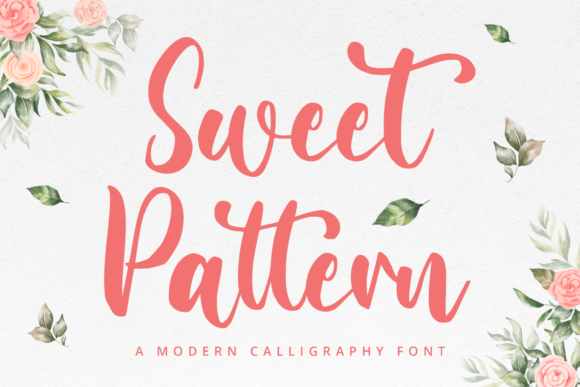
**Sweet Pattern Font: The Epitome of Elegance and Charm**
Immerse yourself in the world of Sweet Pattern, a captivating script font that embodies grace, sophistication, and timeless beauty. Inspired by the intricate patterns found in nature and the delicate touch of calligraphy, Sweet Pattern is an artistic masterpiece that will elevate your designs to new heights.
**A Font That Speaks Volumes**
With its sweeping strokes, playful curves, and meticulous attention to detail, Sweet Pattern is a font that speaks volumes. Each letter is a work of art, carefully crafted to convey a sense of elegance and refinement. Whether you're designing wedding invitations, thank-you cards, logos, or any other project that demands a touch of sophistication, Sweet Pattern will make your words come alive.
**Vertical Text: A Unique and Eye-Catching Twist**
Sweet Pattern truly shines when it's used for vertical text. Its elongated letters and flowing lines create a visually striking effect that is sure to captivate your audience. Whether you're designing a poster, a social media post, or a website banner, Sweet Pattern will make your vertical text stand out from the crowd.
**The Perfect Choice for Personal and Commercial Projects**
Sweet Pattern's versatility extends beyond its aesthetic appeal. It's a font that's equally suited for personal and commercial projects. Whether you're a designer, a crafter, or a business owner, Sweet Pattern will help you create stunning designs that leave a lasting impression.
**Benefits at a Glance:**
* Unparalleled elegance and charm
* Perfect for wedding invitations, thank-you cards, logos, and more
* Ideal for vertical text designs
* Suitable for both personal and commercial projects
**Sweet Pattern: The Font That Will Transform Your Designs**